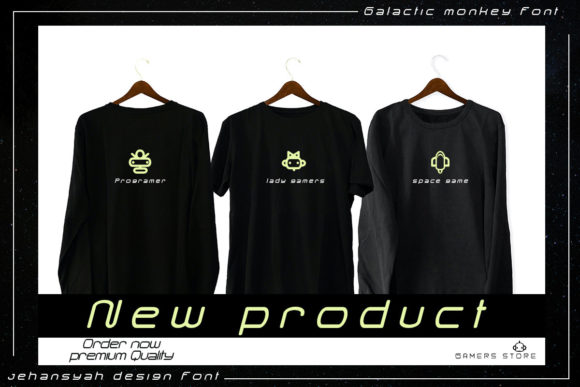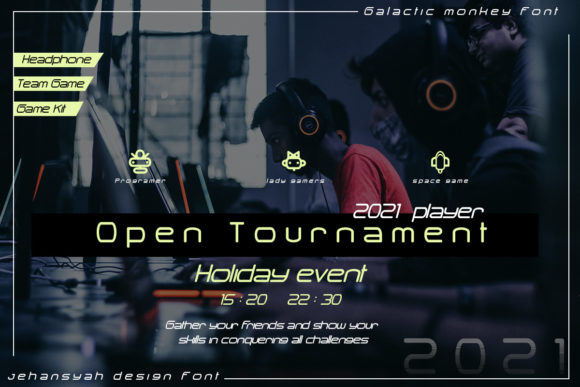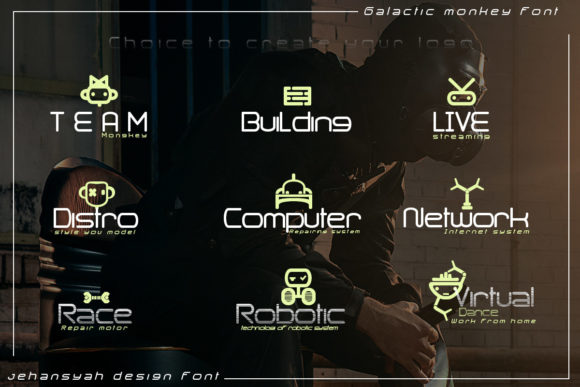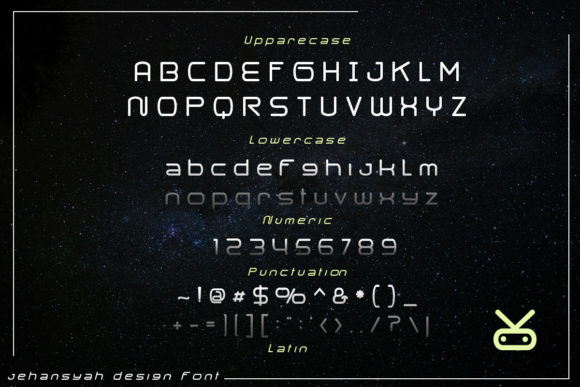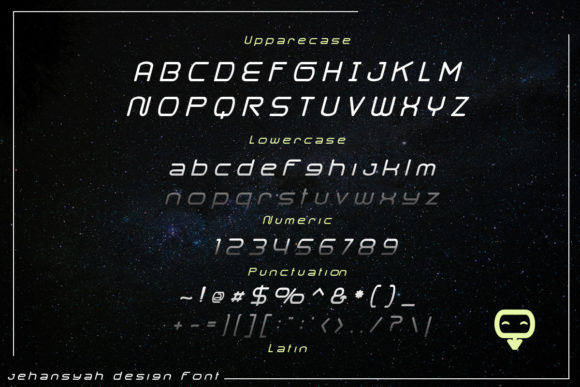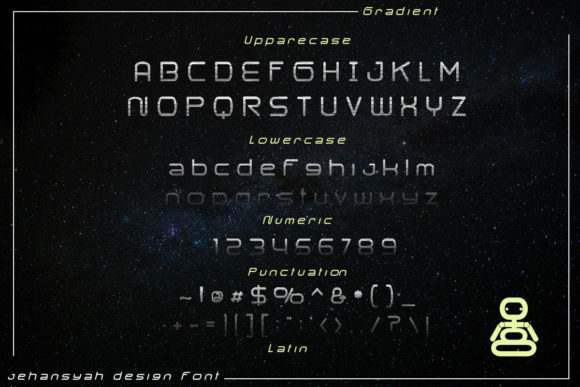
The Perfect Font for Your Cosmic Creations
Have you ever sat in front of your computer, staring at a blank canvas, waiting for inspiration to strike? The cursor blinks, taunting you to create something amazing. And then, it hits you – a burst of creativity that leaves you racing to bring your vision to life. This is what it’s like for many designers, and it’s exactly why the right font can make all the difference.
Enter the Galactic Monkey Font, a high-tech and clean display font that’s perfect for adding a touch of trendiness to your designs. Whether you’re crafting digital masterpieces, creating presentations, or making greeting cards, this font is sure to elevate your work. With its versatility and modern feel, it’s a valuable addition to any designer’s toolkit, and a great way to take your designs to the next level.
Galactic Monkey Font Key Features
- Unique Characteristics: Galactic Monkey Font features an extraterrestrial, futuristic design with a blend of organic and geometric elements, making it perfect for science fiction, technology, and space-themed projects.
- Font Style: This font offers a range of styles, including Regular, Italic, Bold, and Bold Italic, allowing designers to create visually appealing and dynamic typography.
Galactic Monkey Font Review
I’ve had the chance to work with the Galactic Monkey Font, and I must say it’s a unique and intriguing choice for designers looking to add a touch of whimsy to their projects.
- The font’s bold and playful personality shines through in its curved lines and organic shapes, making it perfect for projects that need a bit of flair.
- The font’s versatility is a major plus, working well in a variety of contexts, from headings and titles to body text and even logo design.
- The font’s customization options are also a welcome feature, allowing designers to tweak the font’s appearance to suit their specific needs.
- The font’s readability can be a concern, particularly in smaller sizes or when used in long blocks of text. The letterforms can start to feel cluttered and overwhelming.
- The font’s lack of consistency in its letter spacing and kerning can also be jarring, particularly in certain contexts.
Overall, the Galactic Monkey Font is a solid choice for designers looking to add some personality to their work. While it may have some limitations, its unique charm and versatility make it a great addition to any designer’s toolkit.
Galactic Monkey Font Practical Application Guide
For best results, use the font in a title or heading element to add visual impact to your design.
Use the font in combination with bold or italic styles to add emphasis to your text.
Use the font in headings and titles to add a touch of whimsy to your presentation or document.
The Galactic Monkey Font is ideal for use in creative projects, such as:
Children’s book illustrations
Comic book art
Graphic novels
Advertising and marketing materials
Tips for Getting the Most Out of the Galactic Monkey Font
Use the font in combination with bold or italic styles to add emphasis to your text.
Experiment with different font sizes and colors to add visual interest to your design.
Use the font in creative and imaginative ways to add a touch of personality to your project.